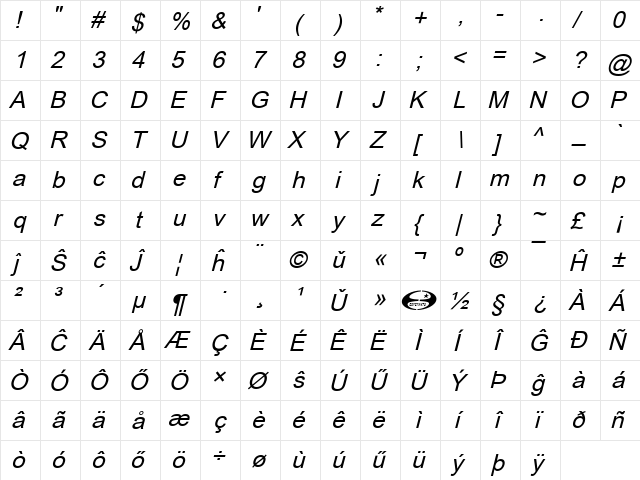
Orion Esperanto Kursiva
Design Context for Orion Esperanto Typeface
Orion Esperanto is a composed and adaptable typeface that performs quietly and consistently across a wide range of design contexts. The dynamic lean of this cut emphasises speed and emphasis in any layout.
Pro Tip: Try Orion Esperanto for annotation and caption copy alongside an upright companion — the contrast in angle creates a dynamic but ordered typographic system.